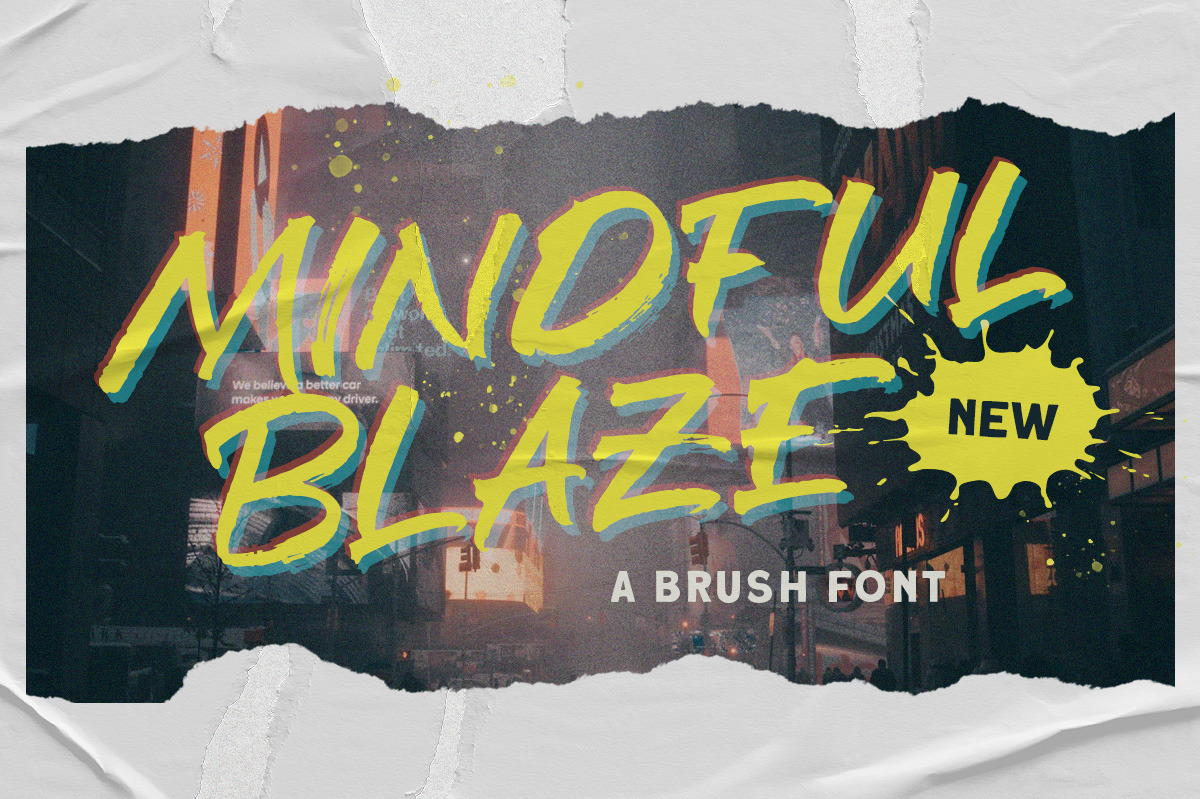
Mindful Braze - Brush Font
Mindful Braze is a freestyle brush font, It's organic and hand-drawn appearance adds a touch authenticity to your designs, making it a perfect choice for projects that seek to stand out with the stroke and creative statement.
This font perfectly made to be applied especially in logo, and the other various formal forms such as invitations, labels, logos, magazines, books, greeting / wedding cards, packaging, fashion, make up, stationery, novels, labels or any type of advertising purpose.